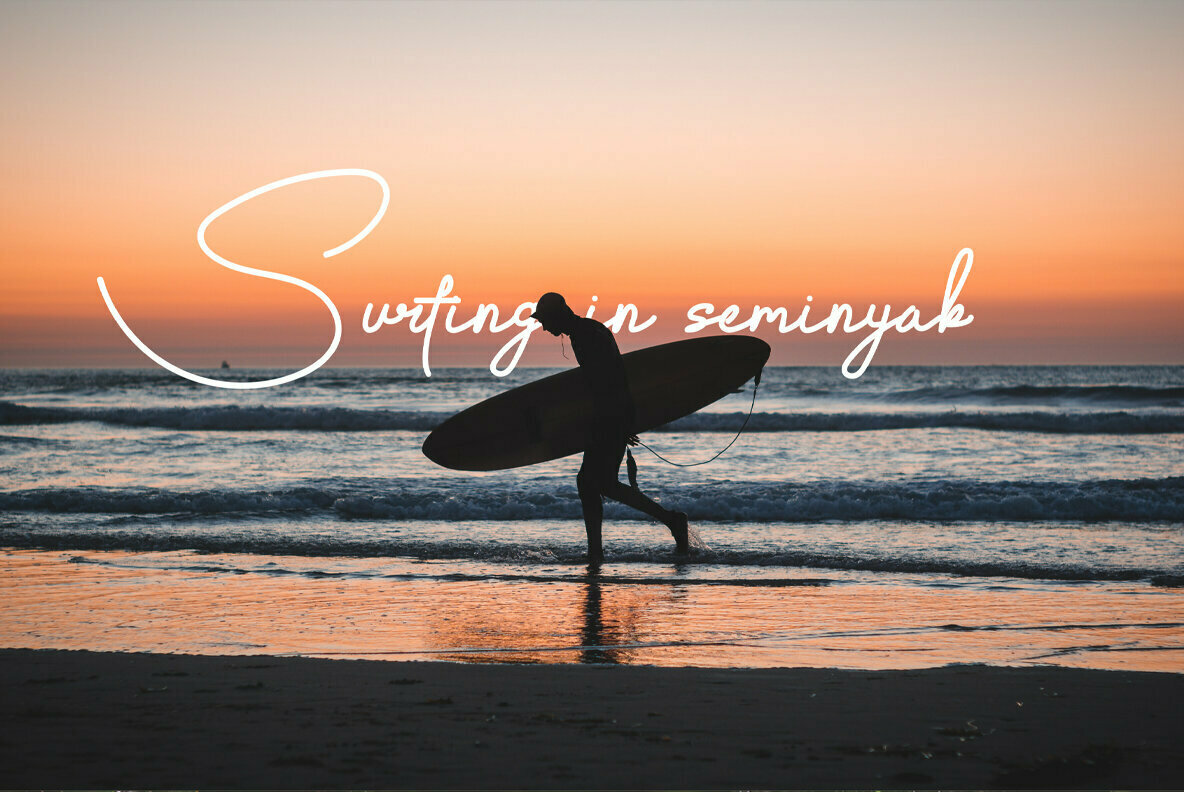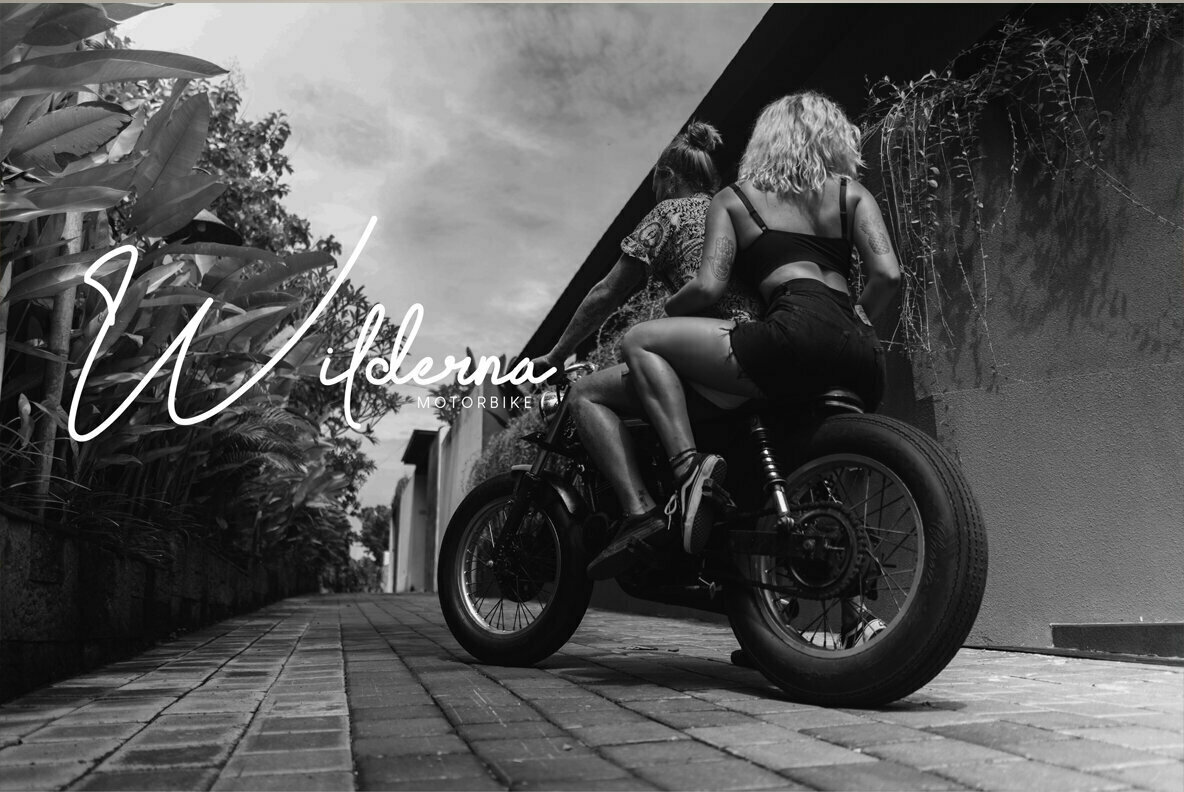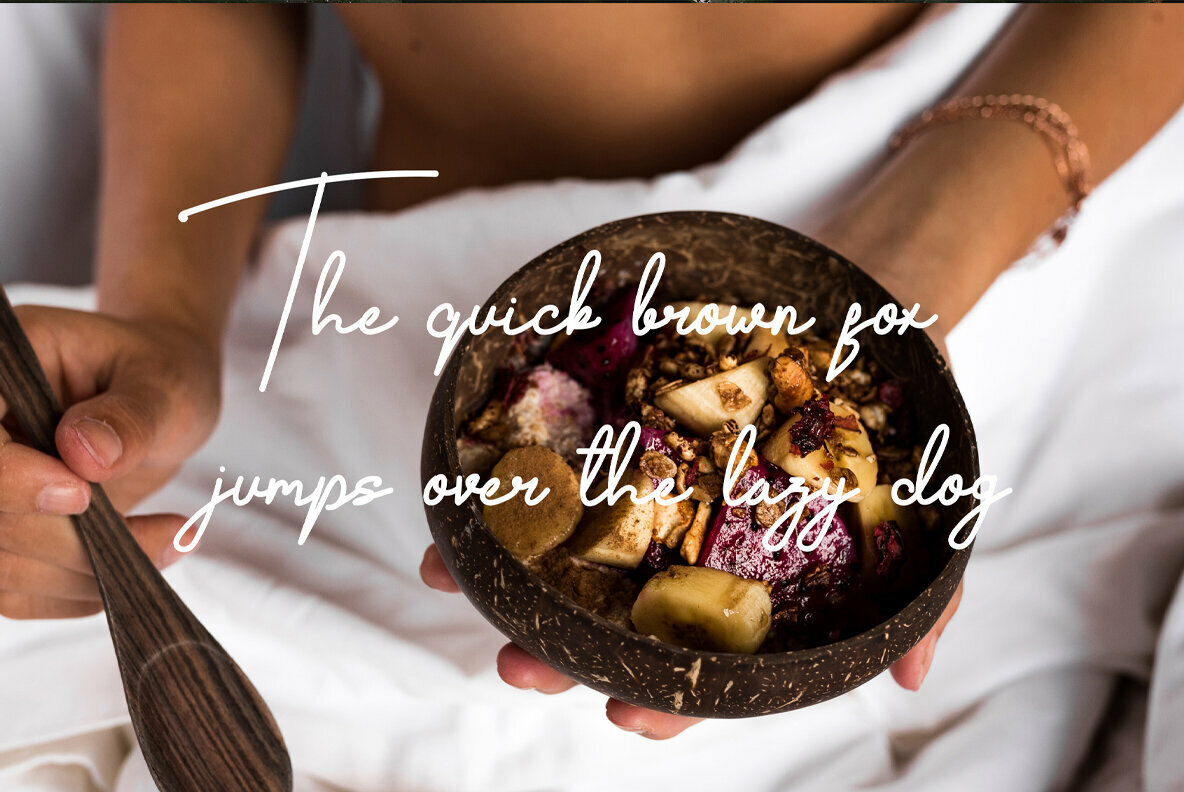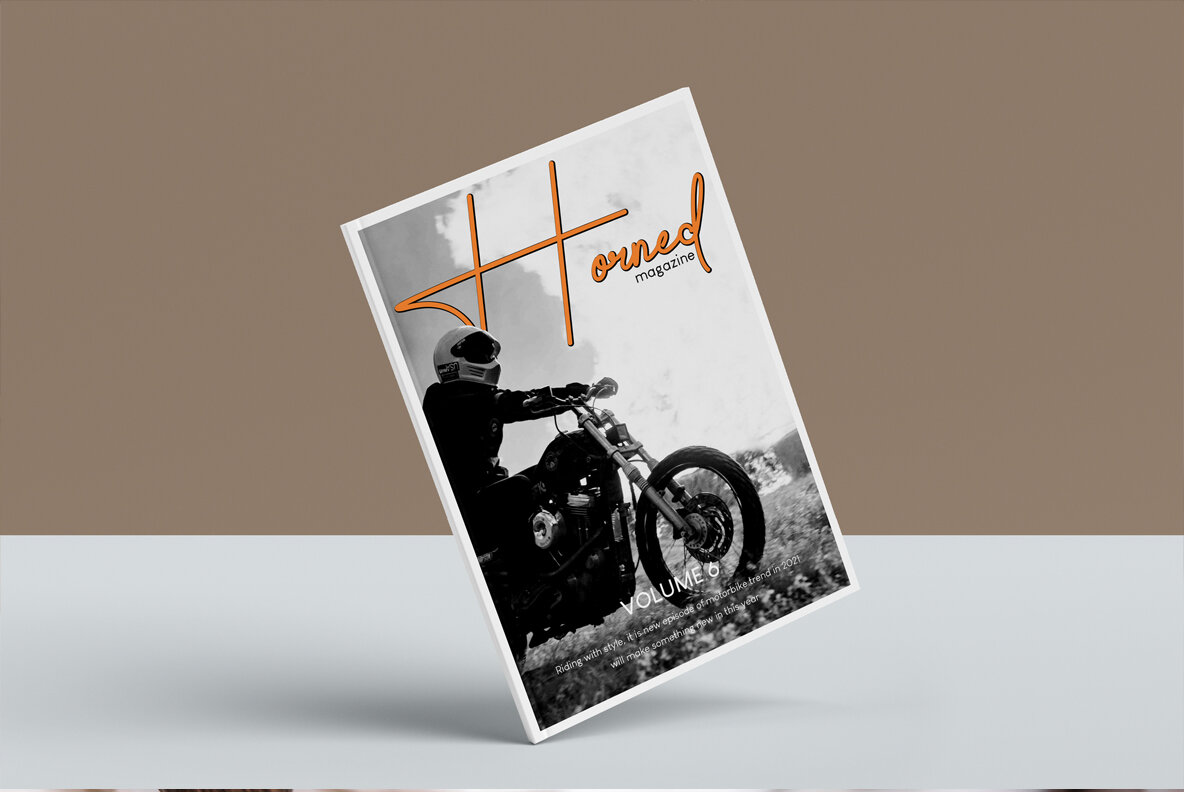
Kally dreams Font
Kally dreams Regular
Achieve a sophisticated look with Kally Dreams, an exquisite monoline font designed for versatility and style. This signature-style typeface is ideal for a variety of applications, including watermarks, logos, advertisements, and social media posts. Its fluid, distinctive lines also enhance product packaging and clothing designs.Kally Dreams: Elegant Monoline Signature Font